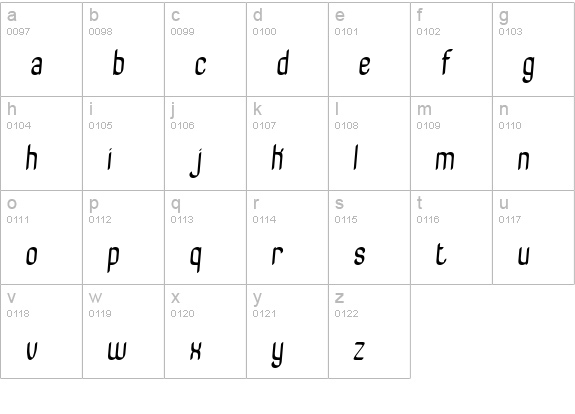
Bewilder BRK Font Details
Bewilder BRK font is a bold and unique typeface that exudes a sense of mystery and intrigue. With its quirky design and playful style, this font is sure to captivate any audience. Whether you're looking to add a touch of whimsy to your designs or create eye-catching headlines, Bewilder BRK font is the perfect choice. And the best part? Bewilder BRK font is completely free to download at FontsMarket.com. That's right, you can enhance your projects with this stunning font without spending a dime. So why wait? Head over to FontsMarket.com today and unleash the magic of Bewilder BRK font in your creations.